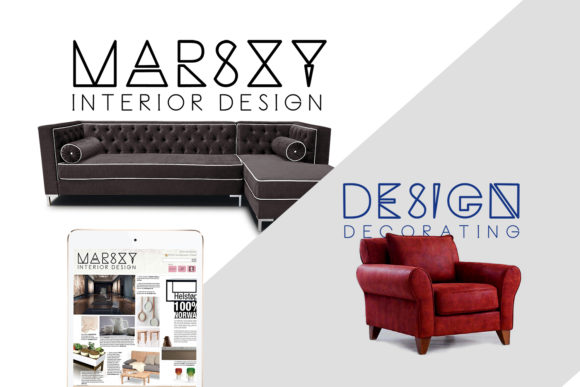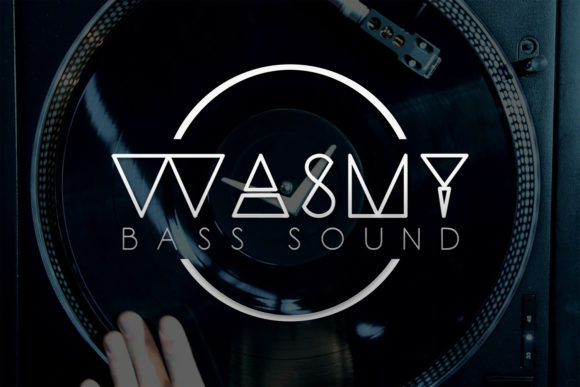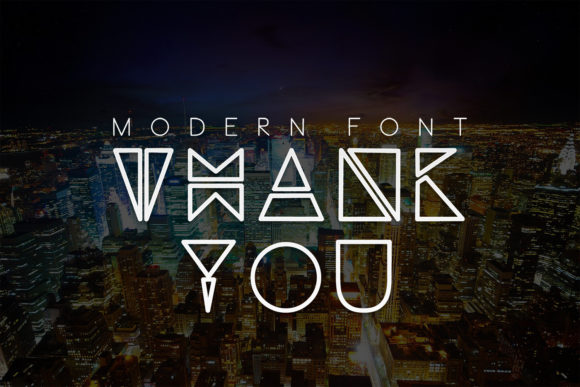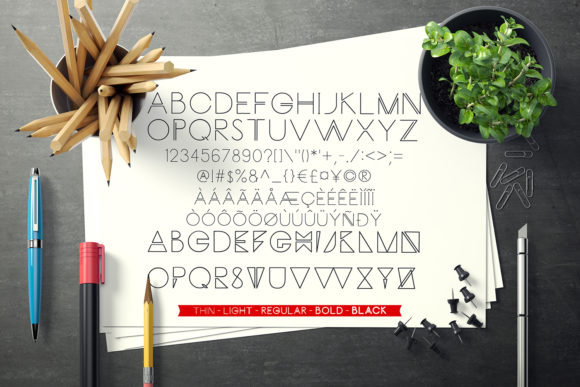
The Perfect Match for Your Next Design Project
| 👤 Author | madeDeduk |
Introducing the Carrinady Font, a modern sans serif created by the talented madeDeduk. This versatile font is designed to excel in both digital and print projects, making it an ideal choice for branding, packaging, apparel, and more. The Carrinady Font is more than just a font – it’s a key to unlocking your creative potential and elevating your designs to the next level.
Carrinady Font Key Features
- Font Family: Carrinady Font is a modern sans-serif font, available in multiple weights (Regular, Bold, Light, etc.)
- Unique Characteristics: The font features a unique blend of geometric and organic elements, resulting in a clean, modern aesthetic with excellent legibility and readability
Carrinady Font Review
Carrinady Font is a beautiful, modern sans-serif typeface that exudes elegance and sophistication. I was immediately drawn to its sleek lines and subtle flair, making it perfect for high-end branding, luxury packaging, and fashion design projects. ✨ The font’s refined aesthetic is sure to elevate any design, giving it a touch of sophistication and glamour.
Here are some of the things that work well with Carrinady Font:
- Refined and elegant aesthetic ✨
- Perfect for luxury and high-end branding
- Beautifully crafted for fashion and packaging design
- Wide range of weights and styles to choose from
- May not be suitable for casual or informal designs
- Some users may find the font a bit too ornate or over-the-top
- Not ideal for body text or long blocks of text
Overall, Carrinady Font is a stunning typeface that’s perfect for designers who want to add a touch of luxury and sophistication to their projects. While it may have some limitations, the benefits far outweigh the drawbacks, making it a great addition to any designer’s toolkit.
Tips for Getting the Most Out of Carrinady Font
Use bold and italic styles to add emphasis to your text.
Experiment with different font sizes to create visual hierarchy.
Combine Carrinady Font with other fonts to create a unique and visually appealing design.
Carrinady Font is ideal for:
Typography-based artwork and graphics
Alternatives to Carrinady Font
Oswald is a sans-serif font that is highly legible and versatile. It’s perfect for use in titles, headings, and body text. Oswald has a similar industrial feel to Carrinady Font, but with a more modern and clean look.
Comparison: Oswald is more modern and clean, while Carrinady Font has a more distressed and vintage feel. Oswald is also more legible in smaller font sizes.
Lato is a sans-serif font that is highly legible and elegant. It’s perfect for use in body text, titles, and headings. Lato has a similar clean and modern feel to Oswald, but with a more sophisticated and elegant look.
Comparison: Lato is more elegant and sophisticated than Oswald, while Carrinady Font has a more rugged and vintage feel. Lato is also more versatile and can be used in a wide range of designs.